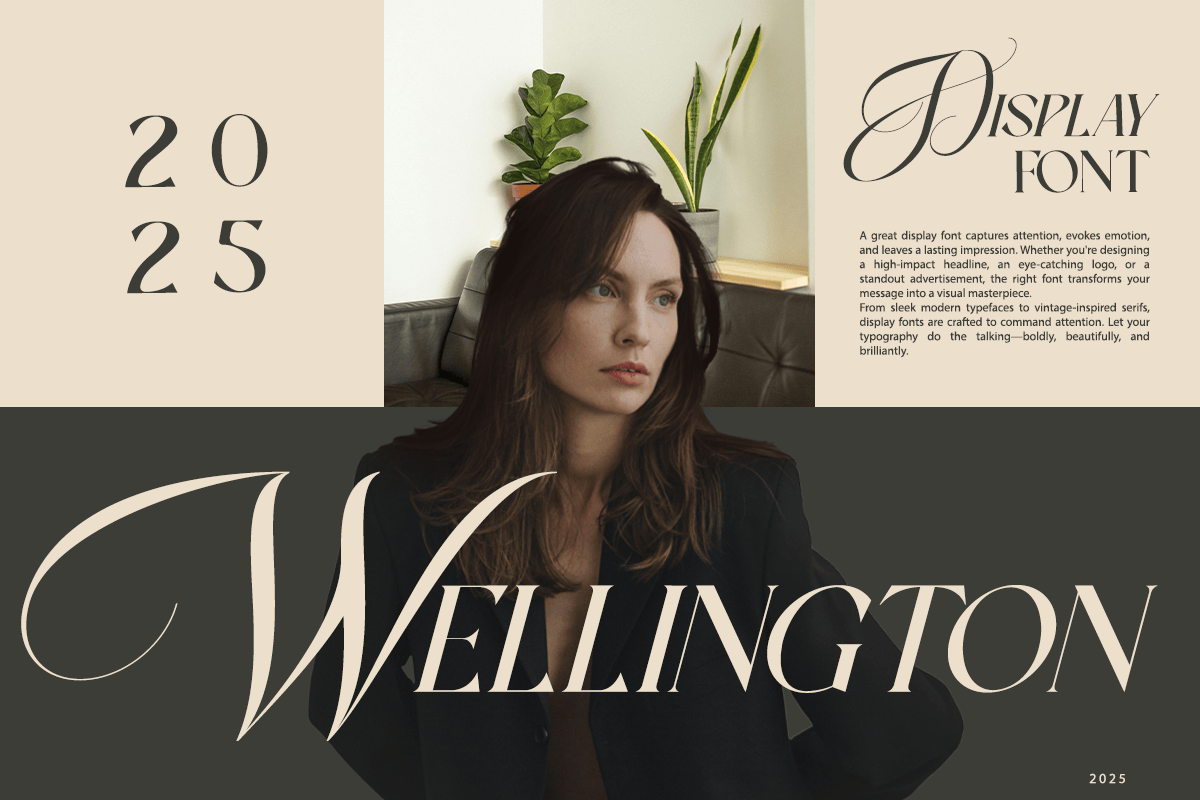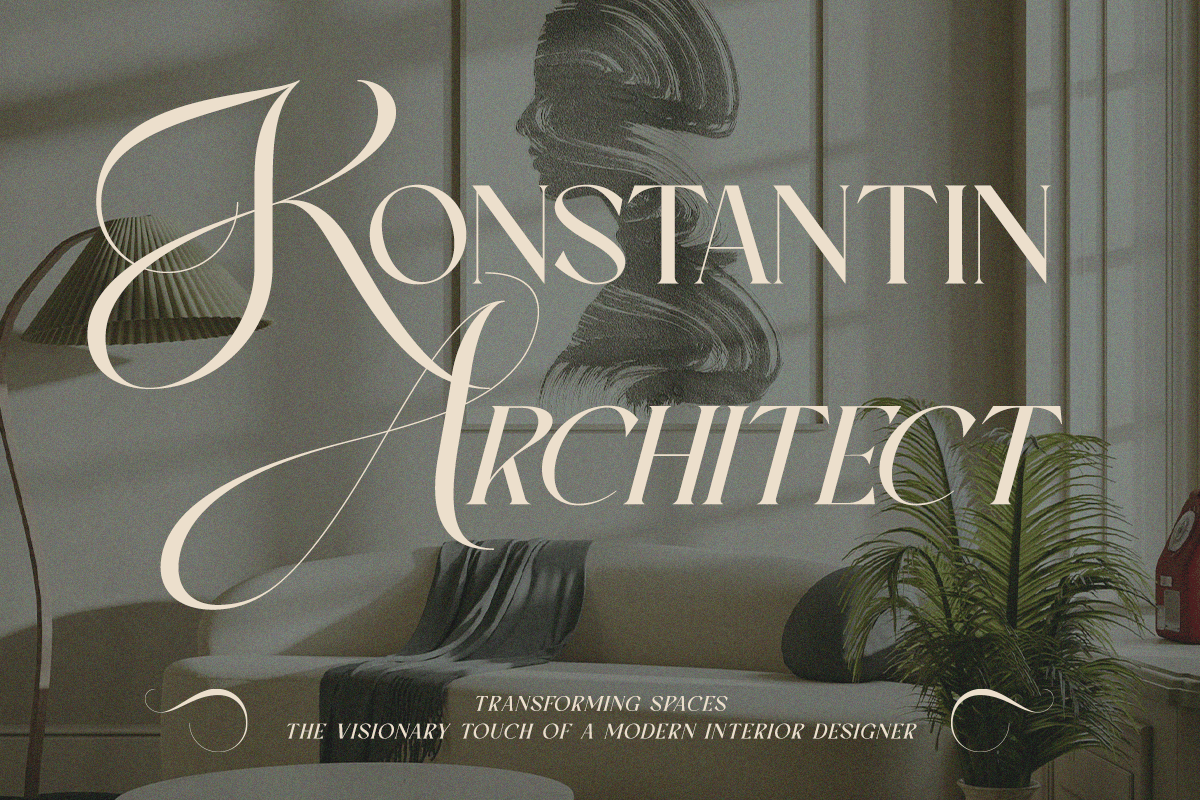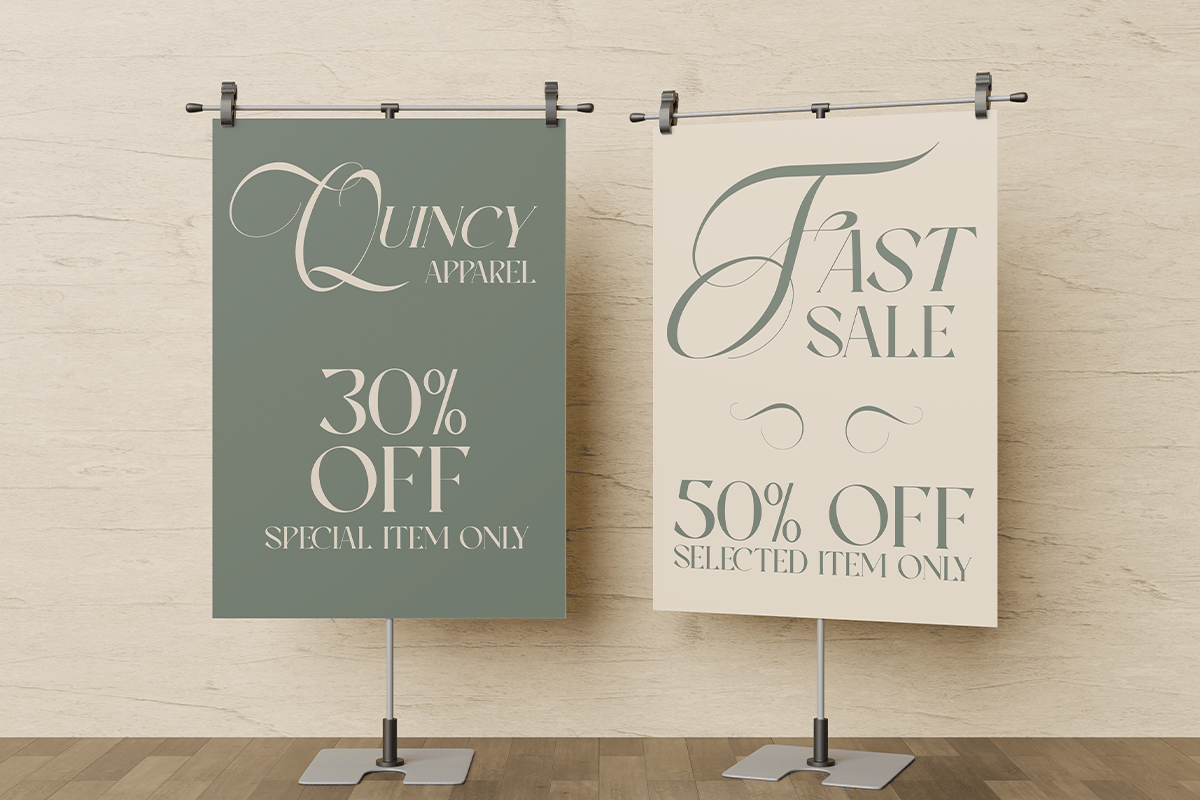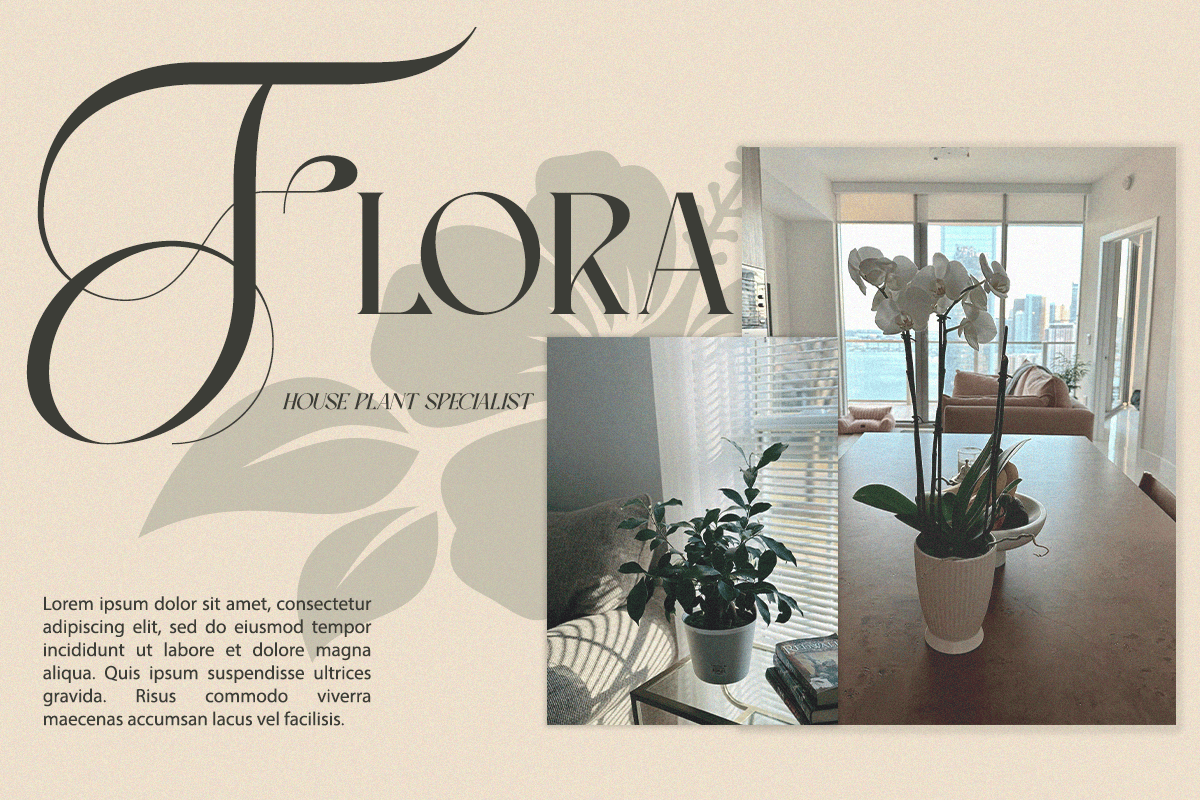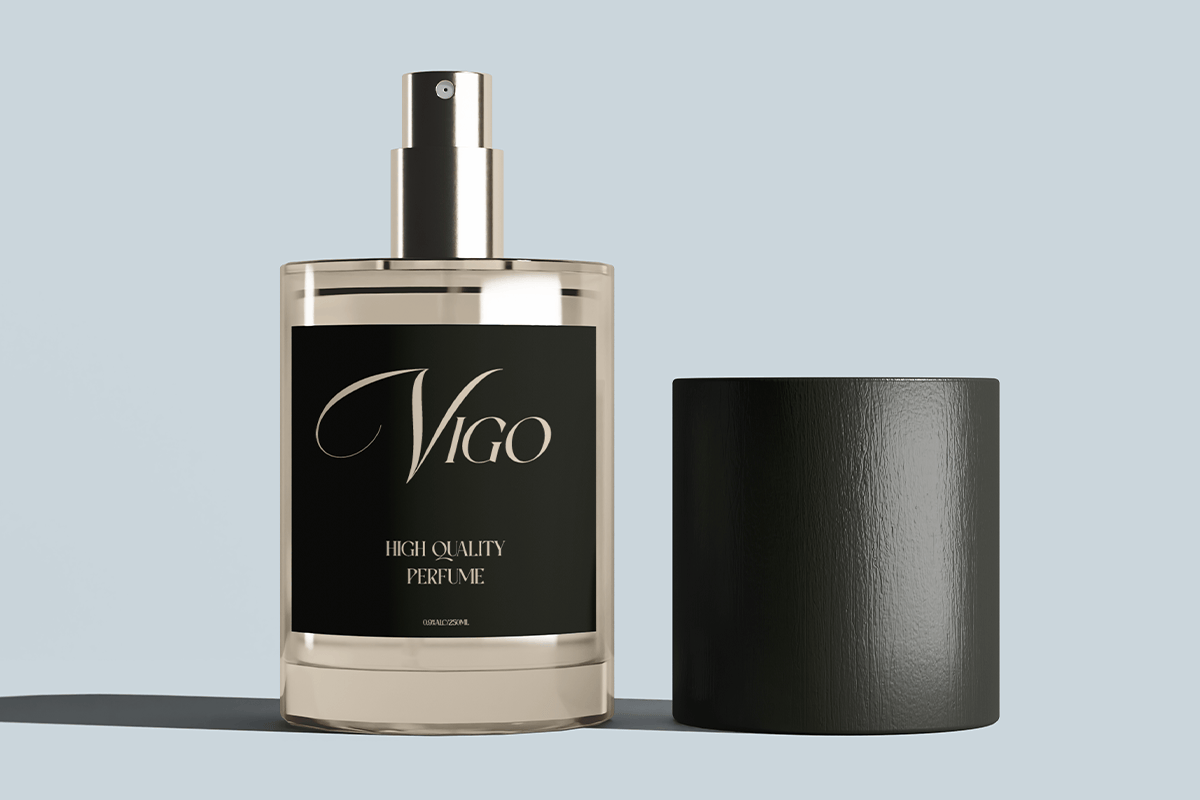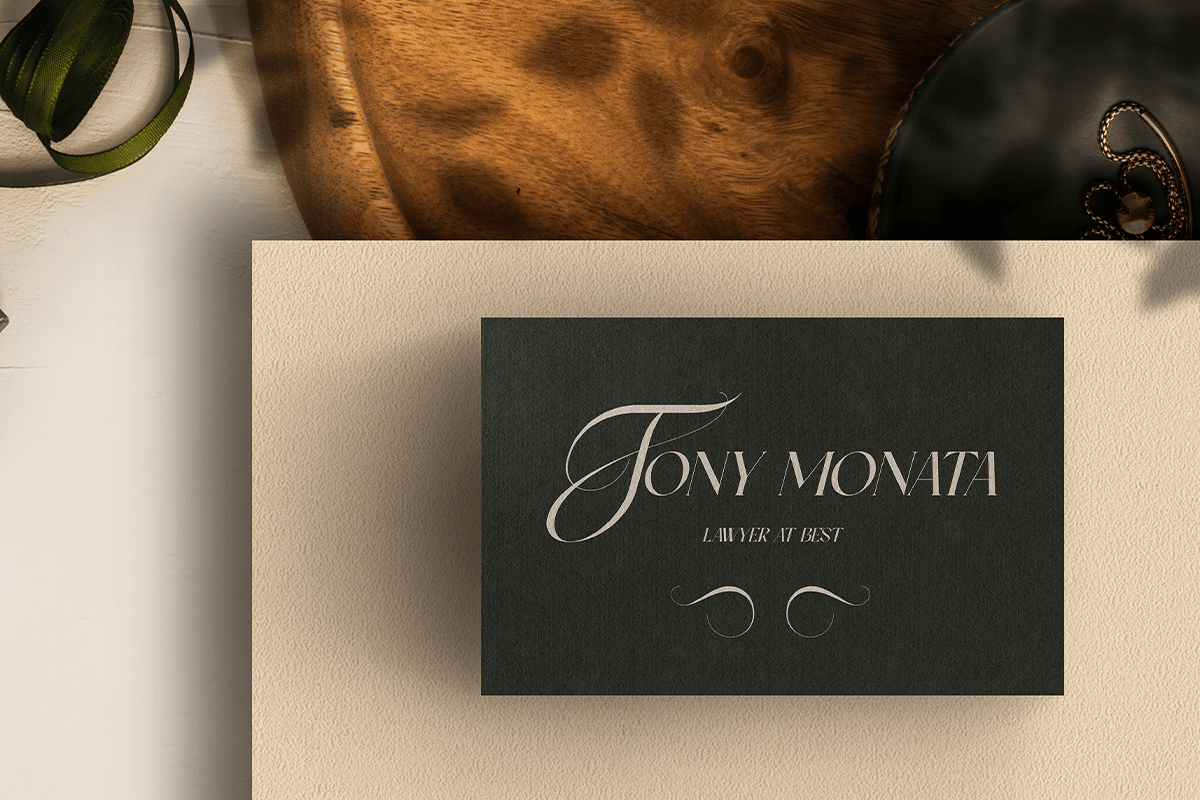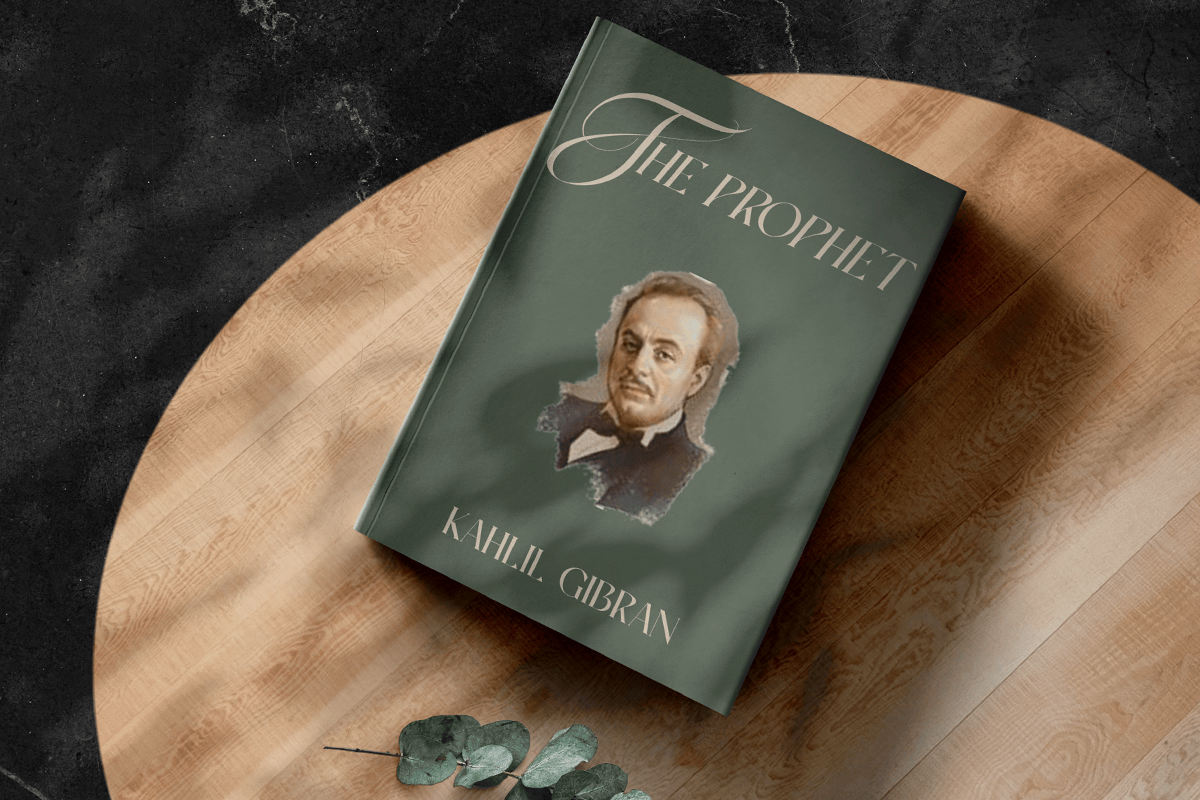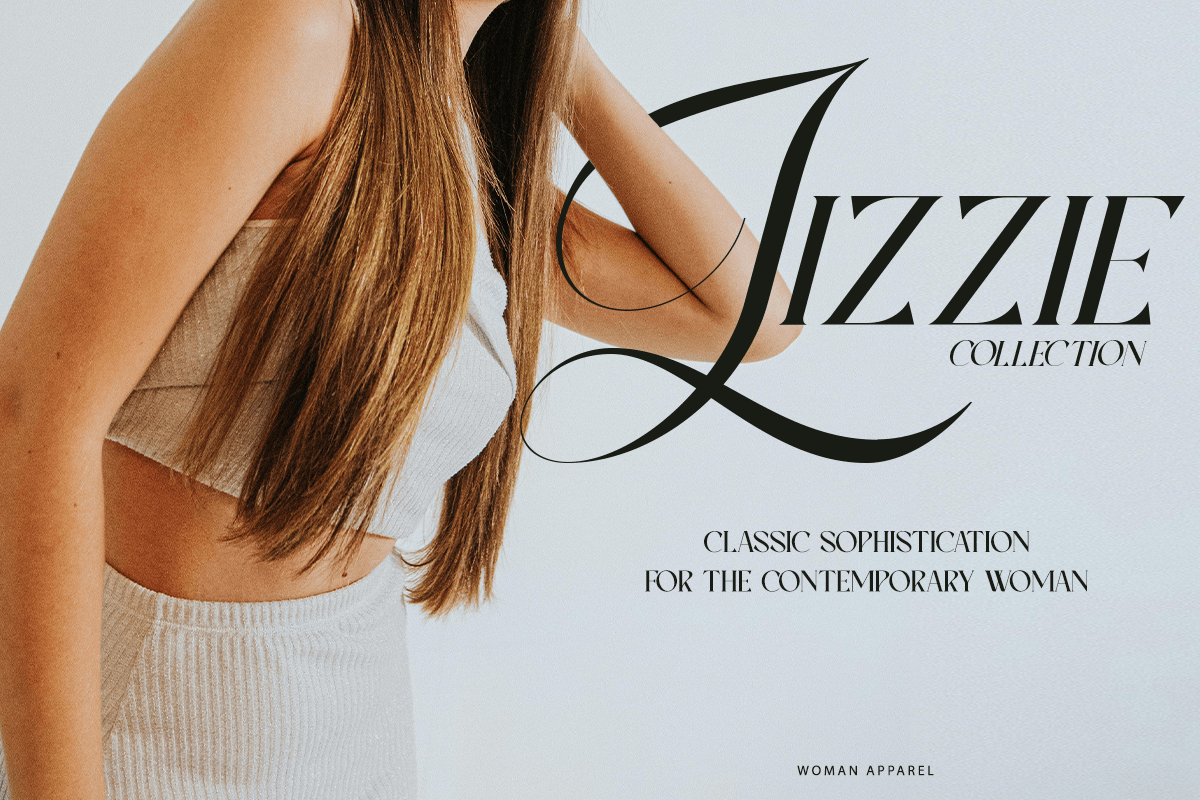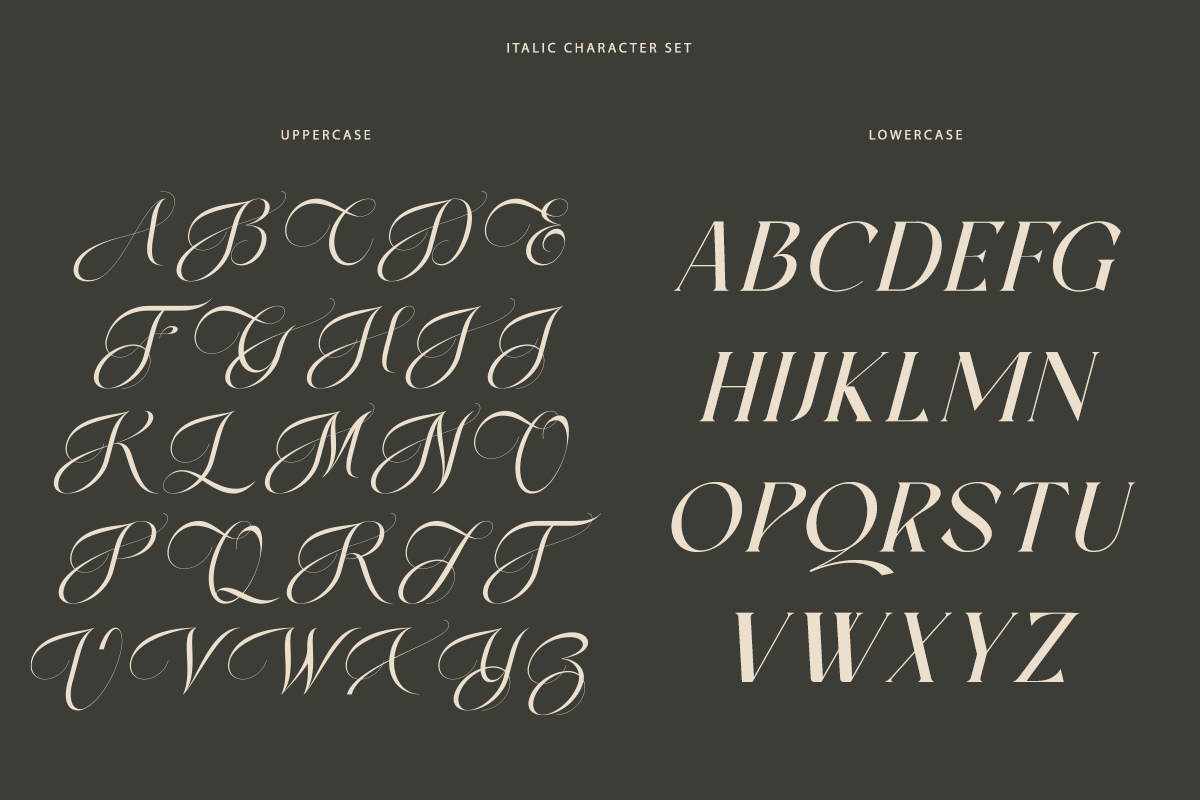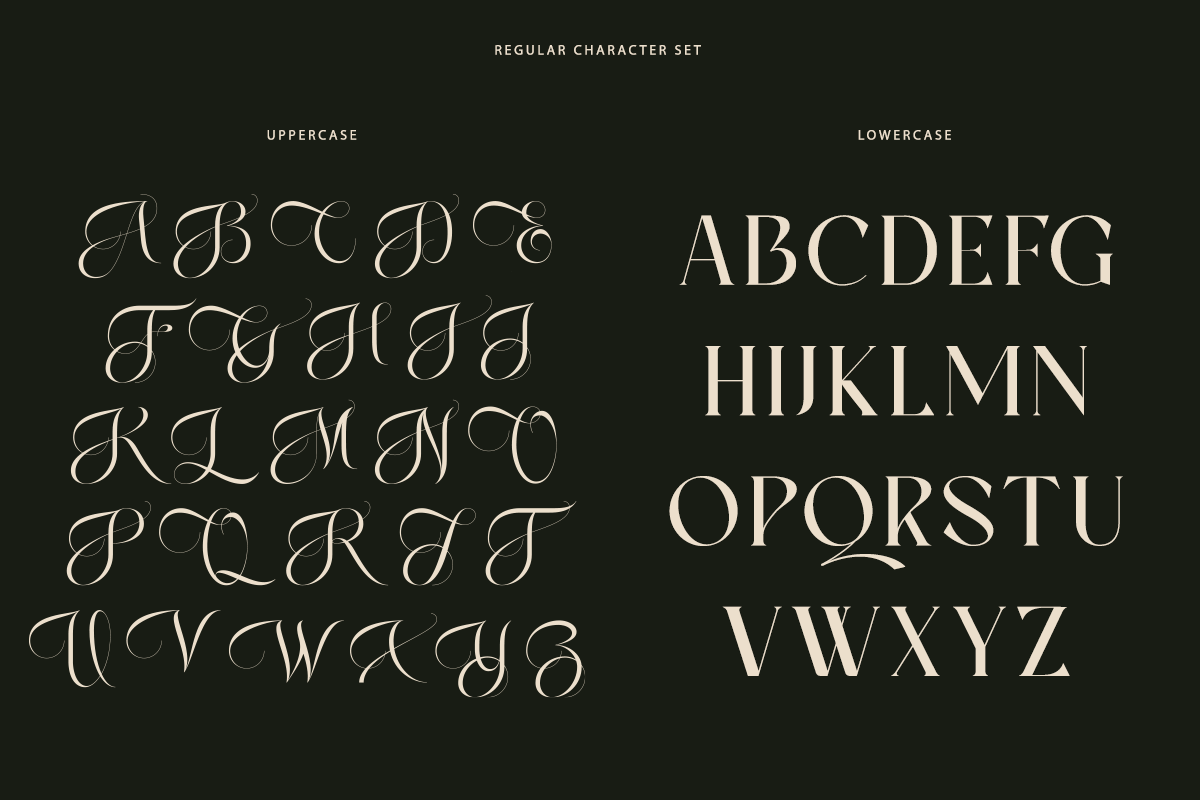
Ever Lasting – Stylish Serif & Script Font
Meet Ever Lasting, the perfect script and serif combination luxury designs. Uppercase : Script – Uppercase letters are meticulously crafted in a beautiful and impactful script style.
Lowercase : Serif – Lowercase letters showcase a serif style, bringing a formal and tidy aesthetic.This elegant pairing combines bold cursive strokes with refined serif details, making it the ideal choice for creators seeking sophistication and flexibility in one package.